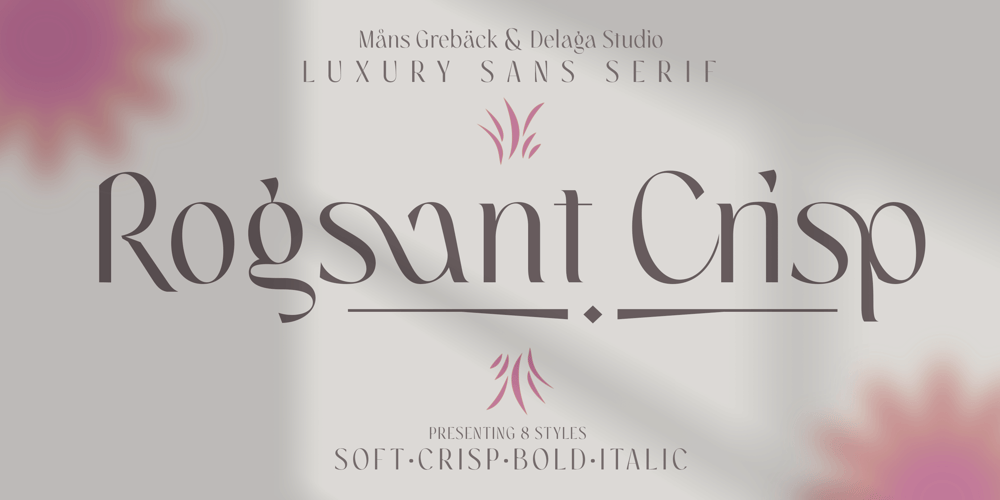
Rogsant Crisp Font Family was designed by Måns Grebäck and published by Mans Greback. Rogsant Crisp contains 4 styles and family package options. Rogsant Crisp is a luxurious sans serif typeface that combines contrasting letterforms with delicate and fine features, creating a beautiful and tasteful appearance. Designed by Mans Greback & Delaga, this clean and clear font exudes professionalism and style, making it perfect for fashion, art, and high-end branding projects.The elegance of Rogsant Crisp lies in its attention to detail and carefully crafted letterforms, which allow for a harmonious balance between sophistication and readability. With its refined appearance, Rogsant Crisp is an ideal choice for both print and digital designs that require a touch of luxury and delicacy.The font is built with advanced OpenType functionality and has a guaranteed top-notch quality, containing stylistic and contextual alternates, ligatures, and more features; all to give you full control and customizability. It has extensive lingual support, covering all Latin-based languages, from Northern Europe to South Africa, from America to South-East Asia. It contains all characters and symbols you’ll ever need, including all punctuation and numbers.Mans Greback is a dedicated typeface designer from Sweden, who continually strives to create innovative and unique fonts. His passion for design and typography shines through in his work, earning him recognition from designers around the globe.